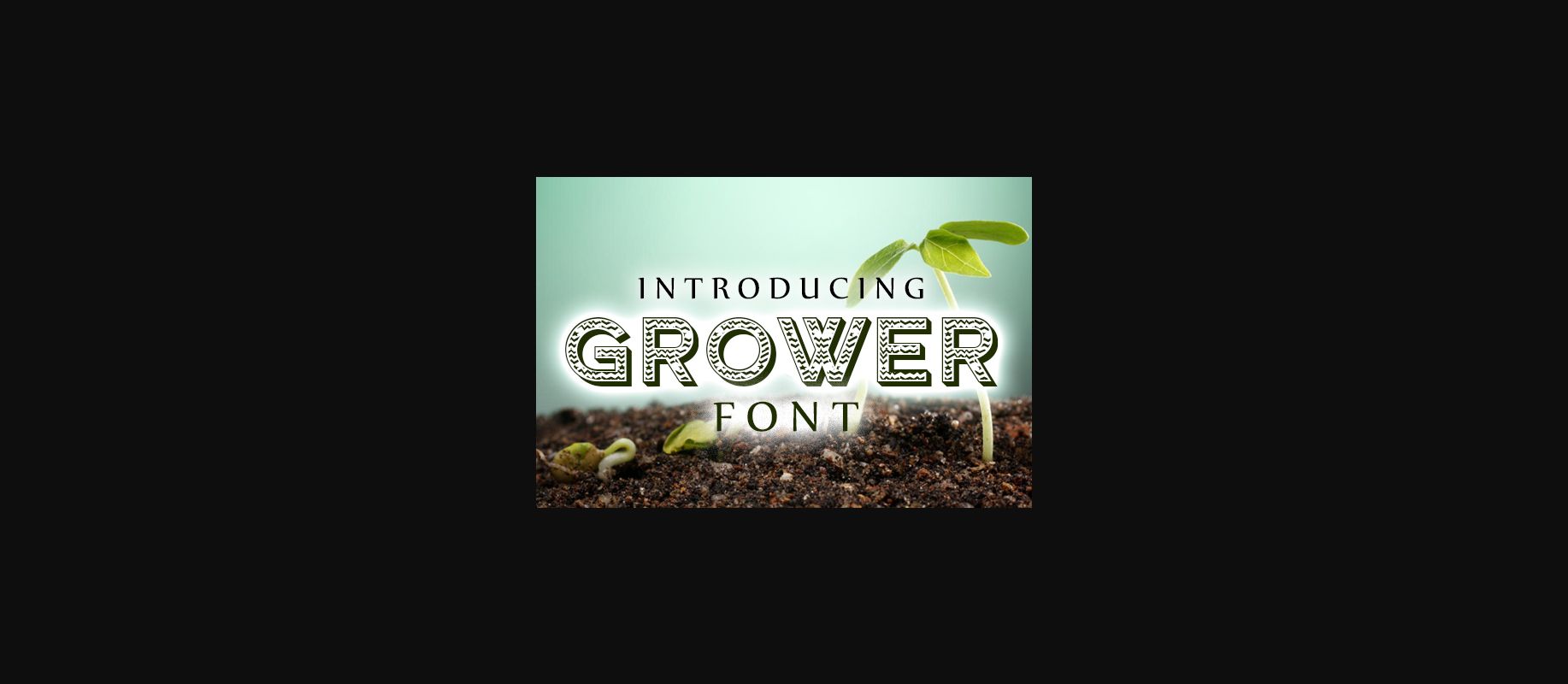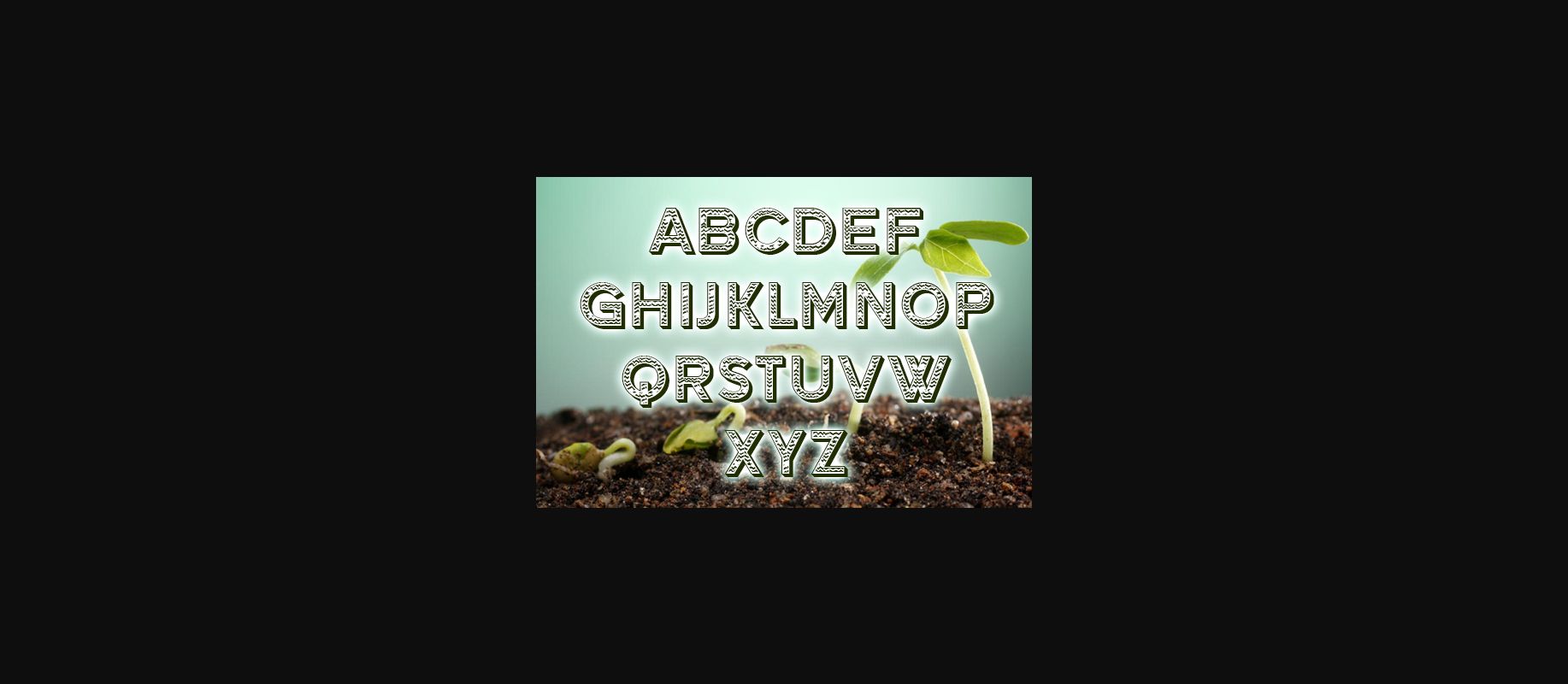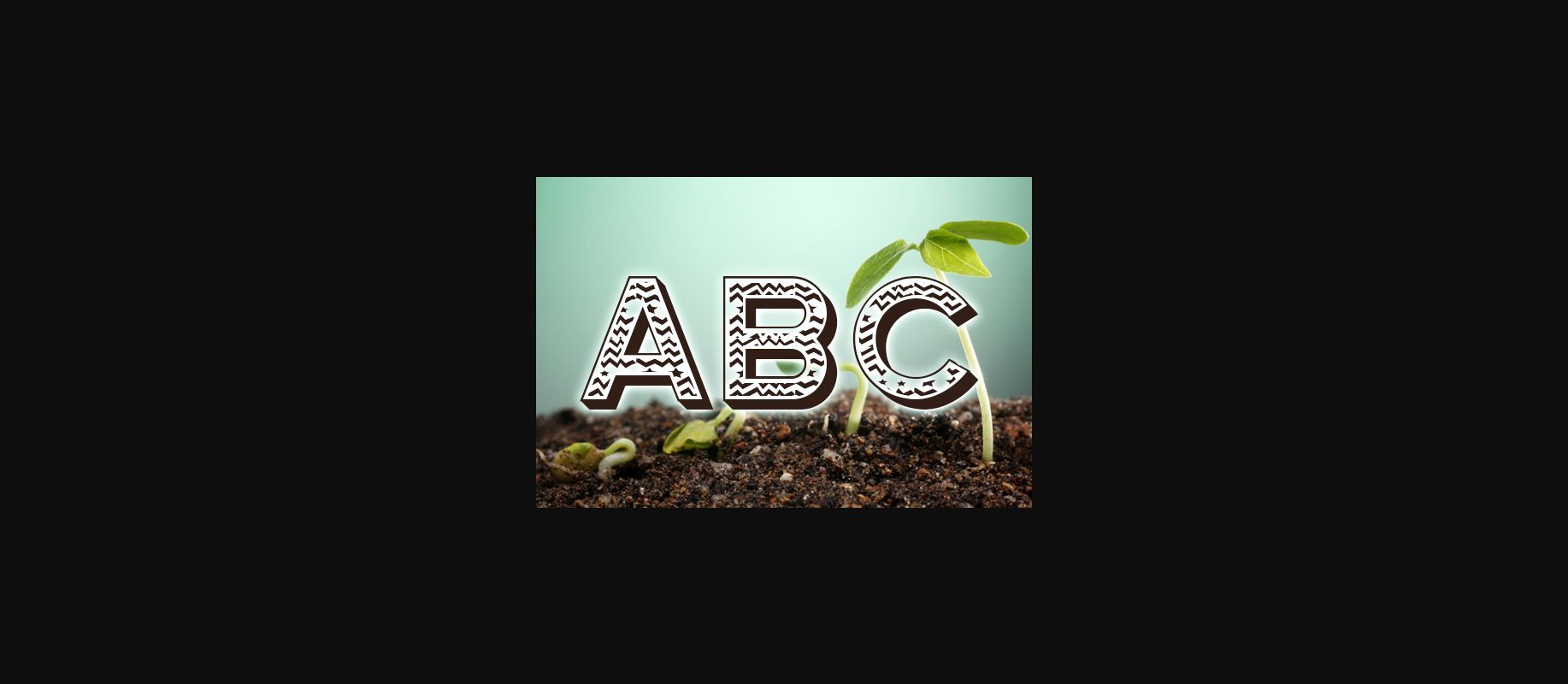
Grower Font
About Grower Font
Grower is a cheerful decorative font that will look stunning on any design.
Choose Grower to give your projects an authentic look.